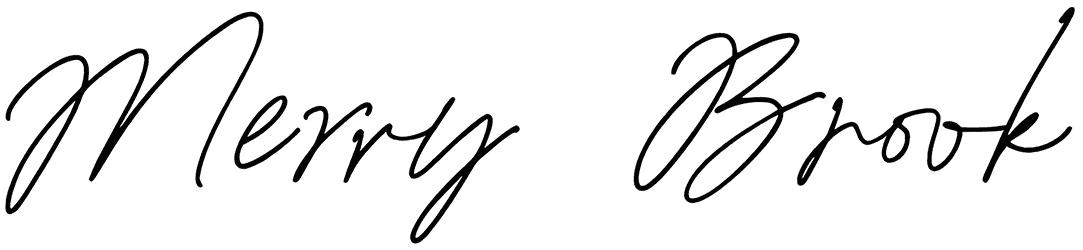
Merry Brook Font
There’s always room in your business cards and invitations for a fancy handwritten font like Merry Brook. We’re talking about those beautifully curved letterforms arranged in their nice cursive form, leaving everyone impressed as soon as you lay eyes on them.
So in case you need a thank you font for your cards, a romantic font for Valentine’s Day designs, or want your anniversary e-vites to feel just as intimate as handwritten letters, you’ll find nothing better than Merry Brook.